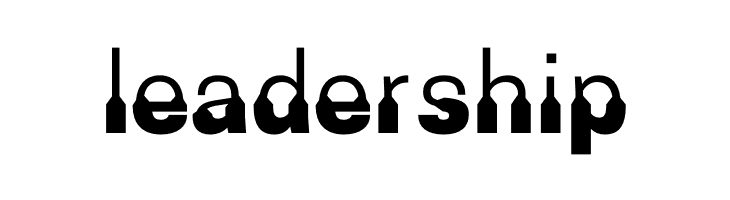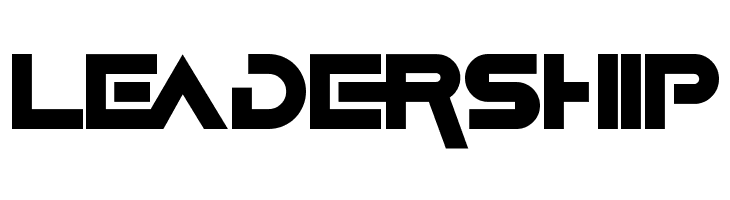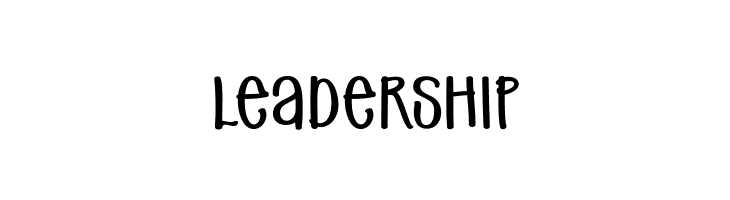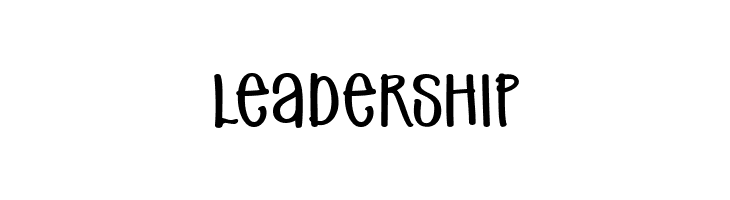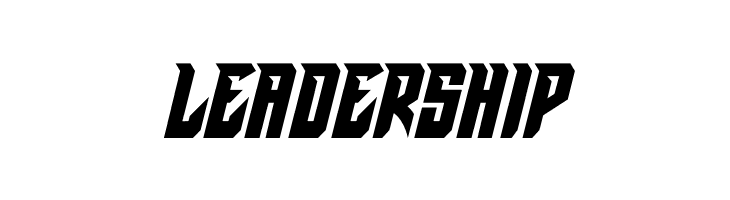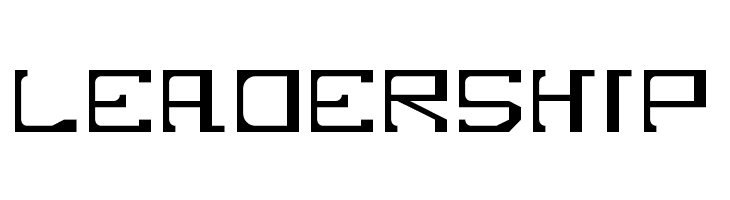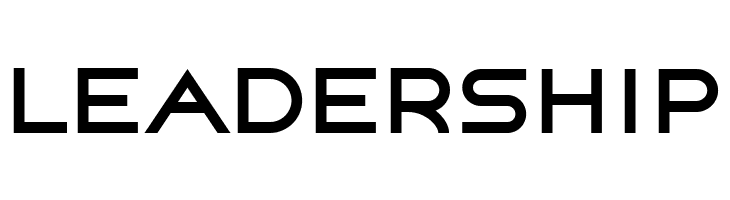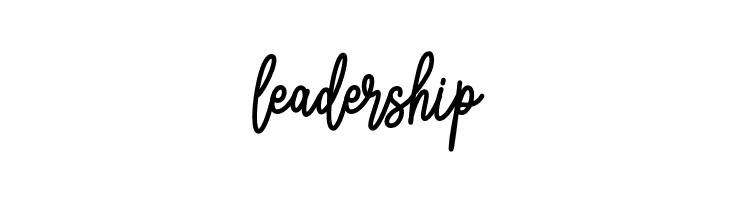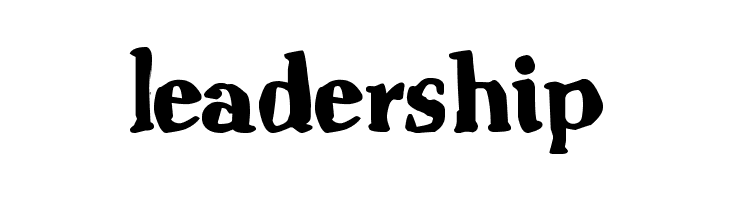
A bold, italicized font with dynamic slanted characters and thick strokes.
A bold, rounded font with a modern and clean design.
A bold, decorative font with ornate square frames around each character.
A bold, decorative font with geometric shapes and intricate borders, ideal for impactful display use.
A bold, modern sans-serif font with geometric proportions and strong visual impact.
A playful, casual handwritten font with smooth, flowing lines.
A modern, geometric sans-serif font with clean lines and balanced spacing.
A decorative font with intricate geometric patterns and bold, framed letters.
A bold, rounded font with a halftone texture, offering a retro and playful appearance.
A playful, casual handwritten font with a dynamic and lively feel.
A bold, distressed font with a grunge texture, perfect for edgy designs.
A whimsical script font with flowing, interconnected letters and playful loops.
A bold, geometric font with strong, angular lines and a modern aesthetic.
A bold, geometric font with a modern and structured design.
A bold, decorative font with thorn-like embellishments and a gothic style.
A decorative, gothic-inspired font with thorn-like extensions.
A bold, three-dimensional font with a layered, geometric design.
A bold, geometric font with sharp, angular characters.
A modern, decorative font with interconnected loops and bold strokes.
A whimsical, loop-filled decorative font with a playful and artistic style.
A bold, italic, geometric font with a modern and mechanical style.
A playful, handwritten-style font with a casual and friendly vibe.
A playful, informal handwritten font with uneven strokes and a casual flair.
Abstract, decorative font with composite, geometric letterforms.